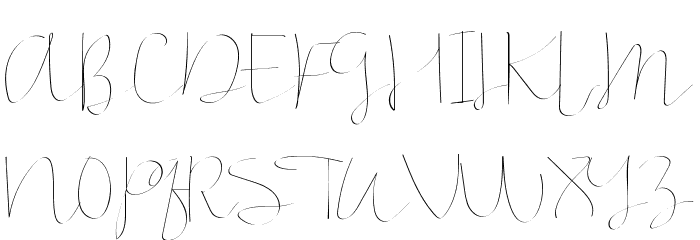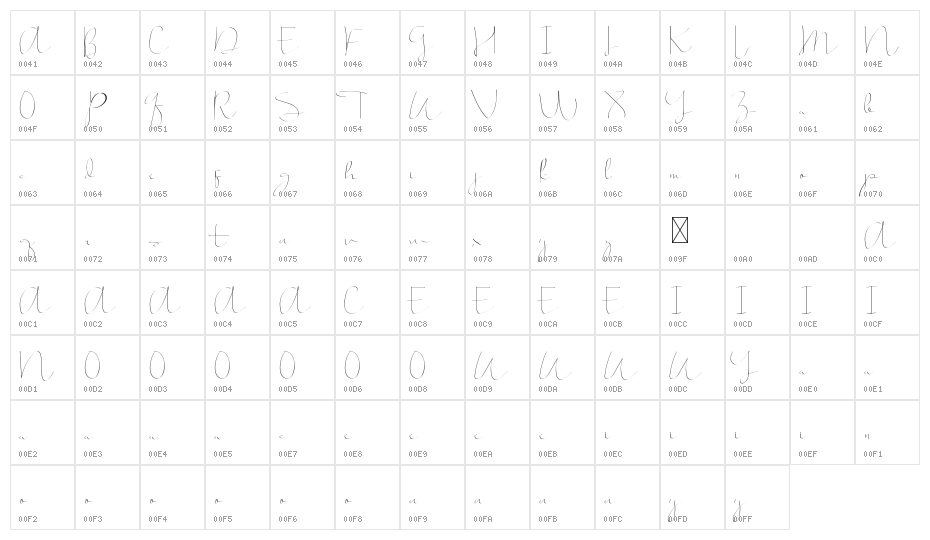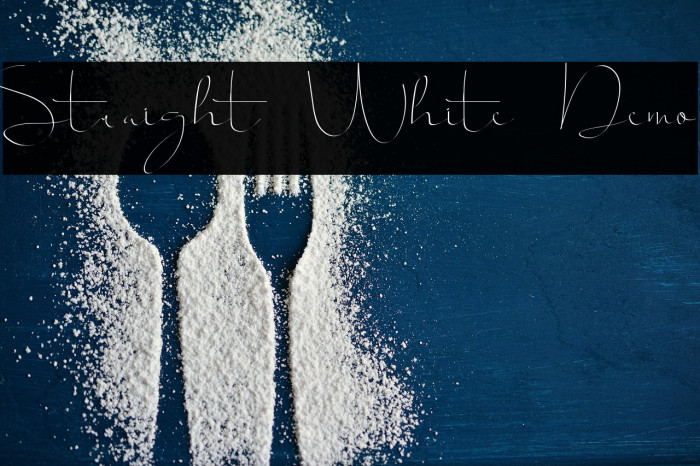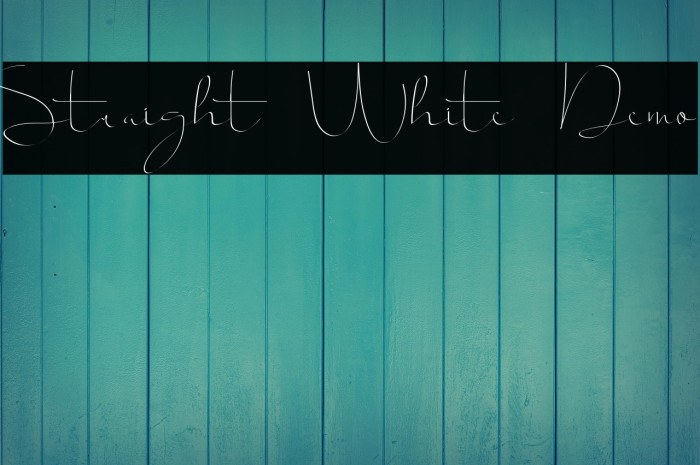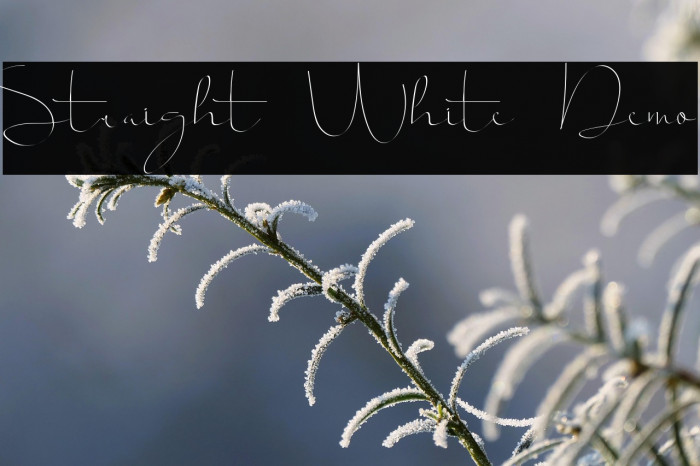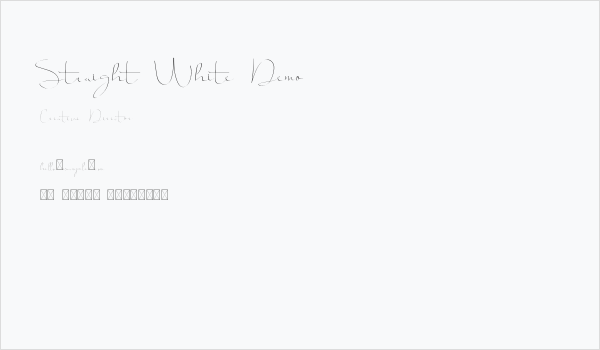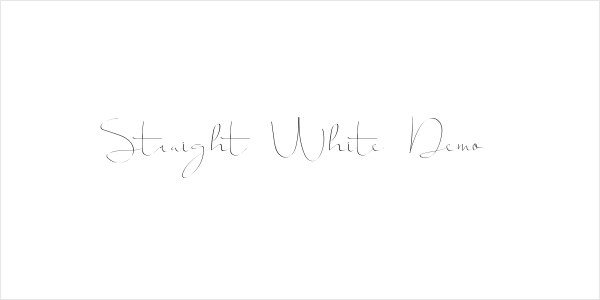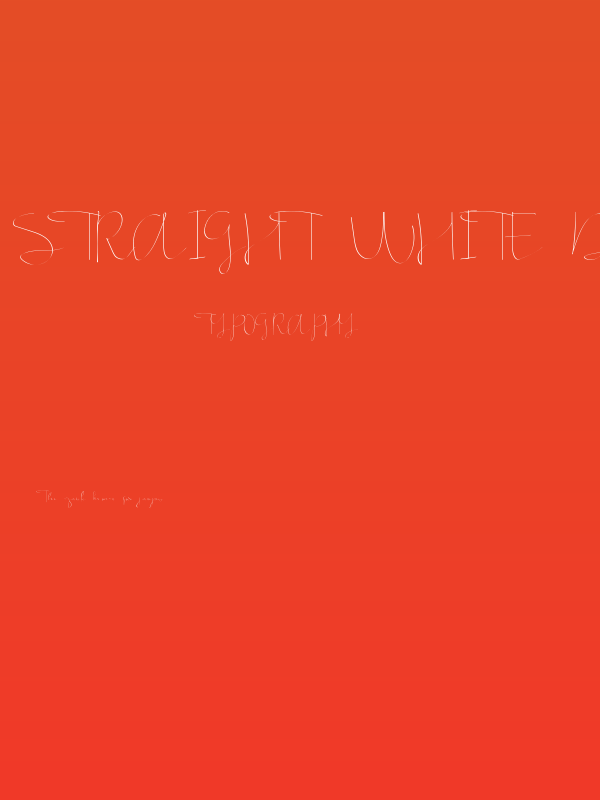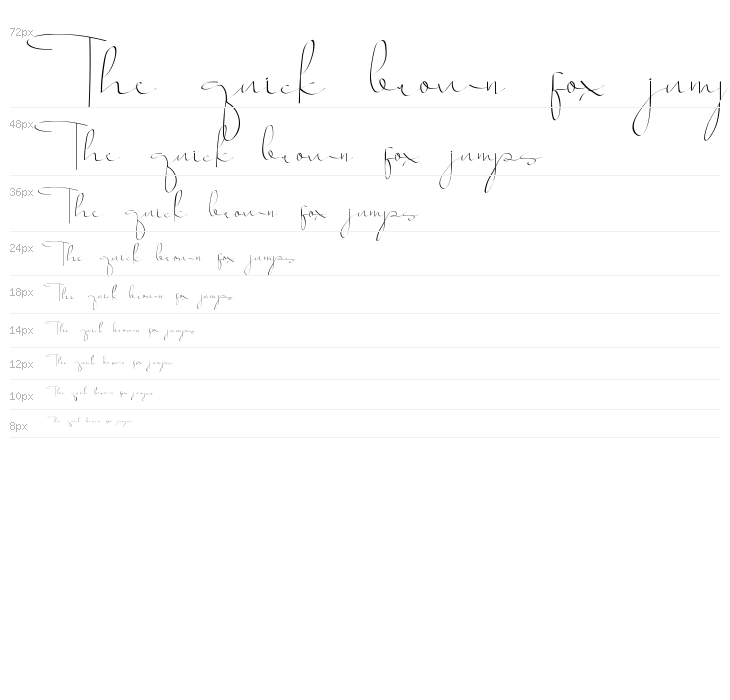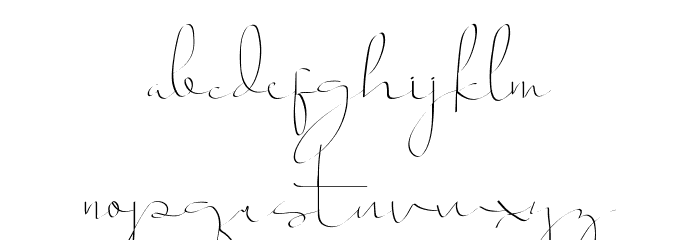
Straight White Demo Font
Straight White Demo Description
This font features an elegant and flowing script style, characterized by its delicate and thin strokes. The letters are interconnected, creating a seamless and graceful appearance. The uppercase letters exhibit a sophisticated flair with extended loops and curves, while the lowercase letters maintain a consistent fluidity. The font's airy and light nature gives it a sense of refinement and sophistication. It is ideal for projects that require a touch of elegance and class, such as wedding invitations, formal event programs, or high-end branding materials. The font's design is both modern and timeless, making it versatile for various applications.
| Overall Style | Elegant, Modern |
| Proposed Projects | Wedding invitations, formal event programs, high-end branding materials. |